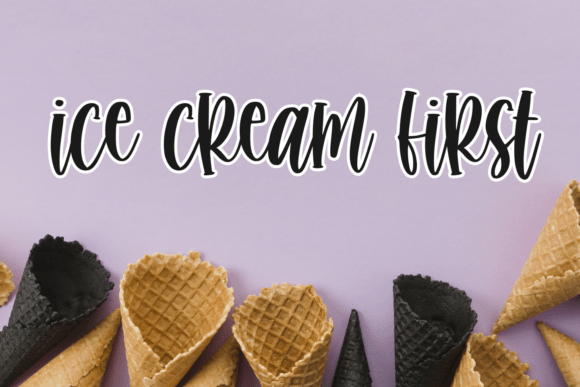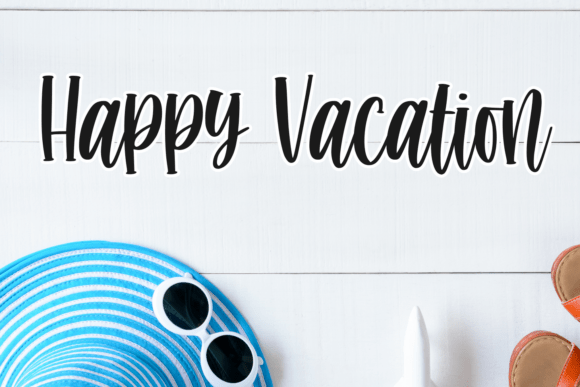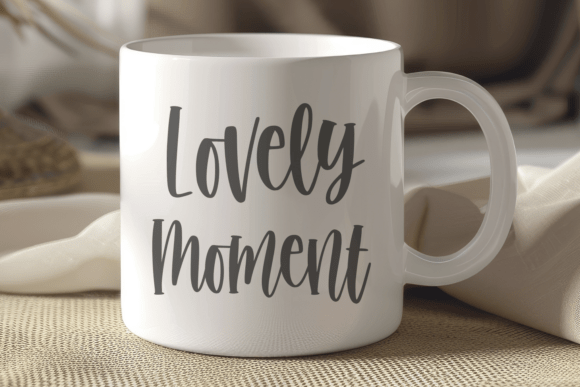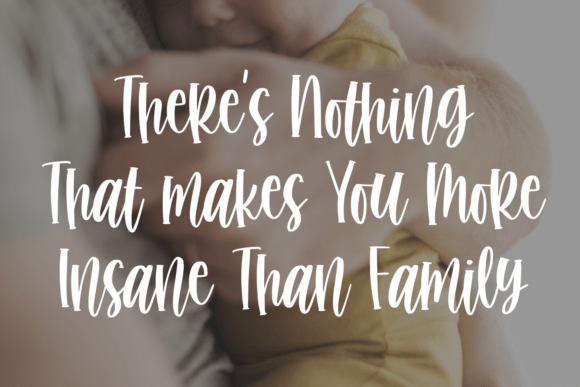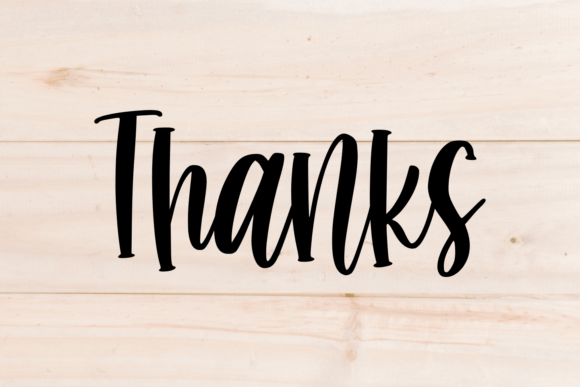
Introduction to Sekochi Font
Remember that moment when you stumbled upon a quirky little café, and the smell of freshly brewed coffee filled the air? The sunlight streaming through the windows, the laughter of strangers, and the gentle hum of conversation all blended together in a beautiful symphony. That’s the essence of Sekochi Font – a lively handwritten script that captures the carefree charm of sunlit days and spontaneous moments.
For designers, Sekochi Font is a valuable resource that offers a unique blend of casual warmth and polished edge. With its smooth curves, slightly bouncy baseline, and confident strokes, this font shines in projects that call for authenticity and approachability. Whether you’re designing for a lifestyle brand, a creative business, or a personal project, Sekochi brings a fresh, uplifting voice that feels genuine and inviting.
As a free download, Sekochi Font is a high-quality design resource that’s perfect for any creative project. Its transparent background makes it easy to pair with other design elements, and its clean finish keeps everything crisp and modern. So why not give Sekochi Font a try and see how it can elevate your next design project?
Key Features of Sekochi Font
- High-quality design resource suitable for creative projects requiring a unique touch.
- Comes with a transparent background, allowing for easy integration into various design elements.
- Unique characteristics: Aesthetically pleasing, elegant design with a touch of sophistication, making it perfect for various creative projects.
Honest Review: Sekochi Font
I recently stumbled upon the Sekochi Font and I must say, it’s a gem. This free download is a high-quality design resource that’s perfect for any creative project. I was impressed by its clean and modern design, making it ideal for various applications.
Here are some of the key features that I appreciate:
- High-quality design that’s perfect for modern projects
While the Sekochi Font is a great resource, there are some limitations to consider:
- Limited character set, which may not be suitable for complex projects
Overall, I’m impressed with the Sekochi Font. It’s a great addition to any designer’s toolkit, and its high quality makes it a worthwhile resource for any creative project. ⭐️⭐️⭐️⭐️⭐️
Common Use Cases for Sekochi Font
Sekochi Font is ideal for various design projects, including logos, brochures, and social media graphics. Its transparent background makes it perfect for overlaying on images or videos.